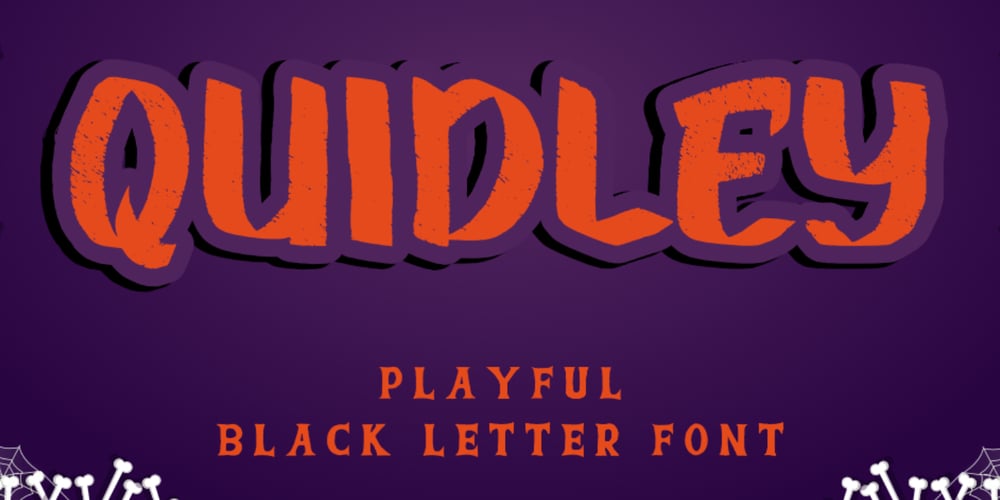
Quidley Font Family was designed by Bayu Aji Fais Mursid and published by Bayuktx. Quidley contains 1 styles and family package options. Hello,Thank you for visiting my products, we will give you the best choice.Quidley, This font is made with a high premium quality level which you can use as flyers, quotes, posters, banners, packaging, merchandise, logotypes and much more.FEATURES :* Uppercase* Lowercase* Number* Punctuation* Multilingual* PUA Encode* OpentypeFILES INCLUDED :* QuidleyThank you